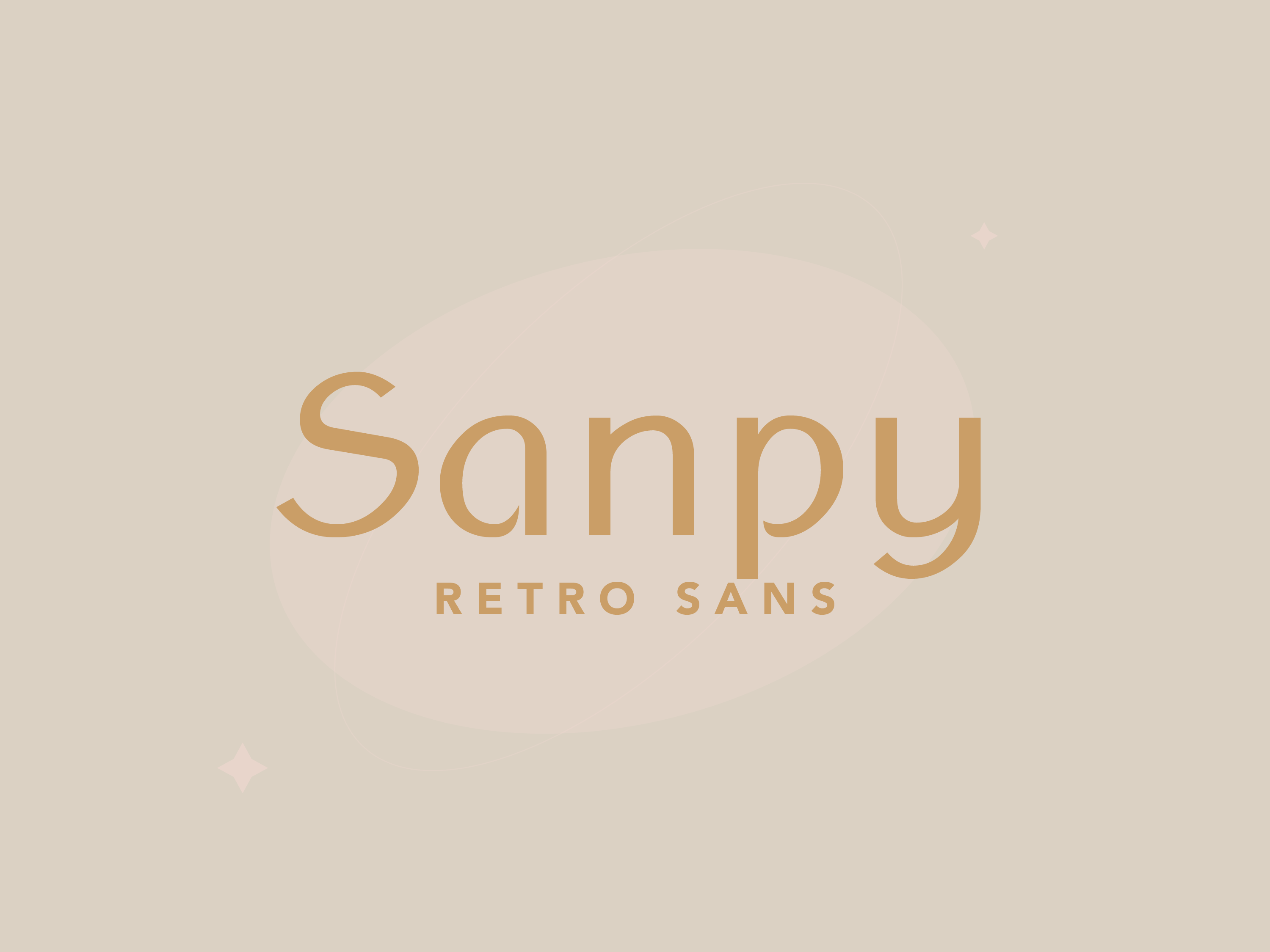
Sanpy Font
Sanpy – The Perfect Balance of Warmth and Confidence
Sanpy is a bold font with a friendly yet assertive personality. Its rounded letterforms—particularly the soft curves of ‘a’ and ‘u’—radiate warmth and a welcoming charm., making it inviting and easy to read. At the same time, its bold weight adds a sense of confidence and impact, bringing a refined sophistication without feeling overpowering.